Handwritten lettering adds a personal human touch that structured geometric fonts cannot replicate. However, traditional heavy calligraphy can sometimes feel overly formal or outdated. Using aesthetic monoline script fonts offers a modern alternative that feels delicate, airy, and contemporary.
Here is how to style monoline cursive typography for modern events, lifestyle products, and minimalist brands.
1. Consistent Line Weight Creates Modern Elegance
Monoline scripts maintain a single stroke weight throughout every letter loop. For example, a font like Racole flows smoothly across the page without drastic thick-to-thin transitions. As a result, your typography looks clean, elegant, and modern.
2. Ideal for Wedding Invitations and Signature Logos
Delicate script typography is extremely versatile across aesthetic niches:
- Wedding Stationery: Perfect for bride and groom names, RSVP cards, and seating charts.
- Boutique Signatures: Adds a custom hand-drawn logo mark for photographers and florists.
- Minimalist Line Art: Pairs beautifully with simple botanical illustrations and line art drawings.
3. Maintain Generous Spacing and Avoid ALL CAPS
To keep cursive typography readable across physical prints, follow two simple rules:
- Never type script fonts in all uppercase letters, as connecting loops will overlap messily.
- Provide plenty of white space around cursive headlines so delicate loops do not look cluttered.
Recommended Fonts from Artisan Font
- Racole: A classic monoline script font with smooth, natural cursive connections.
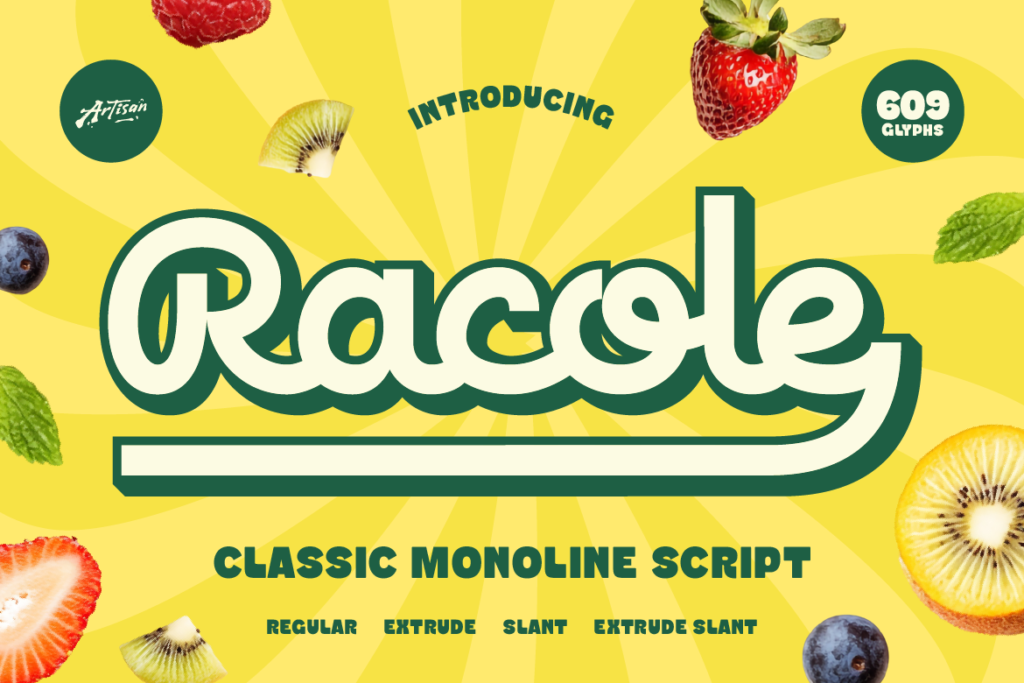
- Lisaline: An elegant script font crafted for romantic branding and boutique logos.